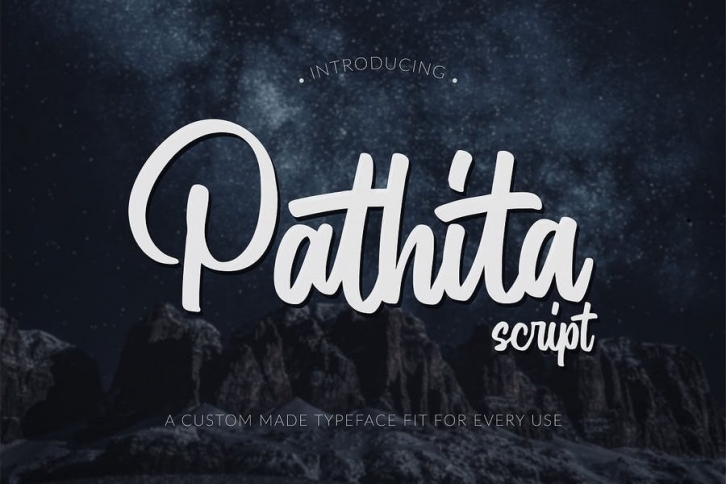
Pathita Script
Everything has beauty, but not everyone sees it – Confucius
Bring out your true self with the Pathita Script!
Being a designer, you need to convey information to those who will – and to some extent might – see your work of art! The thing is, the ideal design is there, but how can you bring it out?
We are hoping that through this simple cursive font, you can maximize your designs! In turn, you’ll communicate the perfect idea to your audience. It will comfortably fit inside your design so that there will be no awkwardness or a jarring feel, giving solace to the viewers.
Fully realize your boldness and show your lavish side with the Pathita Script. Connect with your audience with a little perspective as these cursive letters connect each other in a beautiful manner. After all, these days, branding is all about making a connection with your audience, right?
The Pathita Script will be the perfect addition to aid you in your journey to be who you really are. Let the world see you and your beauty, bring it out through your handiwork and give your viewers a new perspective!